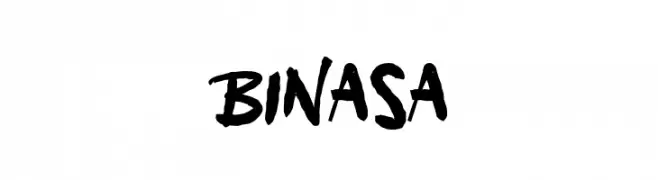
A playful, hand-drawn font with a spooky, rustic style.
A playful, hand-drawn font with a spooky, whimsical style.
A decorative font with whimsical swirls and intricate inline details.
A dynamic and elegant script font with fluid strokes and a graceful slant.
Expressive, bold script with a handwritten brush style.
A lively and elegant script font with smooth, interconnected curves.
A bold, playful font with rounded, cartoonish characters.
A playful, dotted font with bold, rounded characters and whimsical decorative elements.
A bold, three-dimensional font with a dynamic and decorative style.
A playful, hand-drawn font with a whimsical and artistic style.
A bold, graffiti-style font with dynamic, hand-drawn strokes.
A playful, handwritten font with a casual and friendly style.
A bold, decorative font with a filled, striped pattern and three-dimensional effect.
A bold, hollow, and condensed font with a modern, decorative style.
A bold, hollow, 3D decorative font with strong outlines and a modern, dynamic style.
A bold, decorative font with a 3D effect and industrial texture.
A bold, hand-drawn font with a textured, sketch-like appearance.
A lively handwritten font with fluid, slightly slanted characters.
A bold, hand-drawn font with a rugged, organic texture.
A modern, interconnected font with continuous lines and geometric shapes.
A futuristic and geometric font with continuous line designs and a modern aesthetic.
A bold, hand-drawn font with an expressive and artistic style.
A spooky, dripping font perfect for Halloween themes.
A bold, handwritten font with a brush-like texture and dynamic style.
An elegant and flowing script font with graceful, cursive letterforms.
A bold, distressed font with a hand-drawn, grunge style.
A bold, decorative font with a dotted pattern and rounded edges.
A bold, playful font with rounded, chunky characters ideal for eye-catching designs.
A bold, hand-drawn font with a textured brushstroke effect.
A bold, expressive script font with a hand-painted, artistic style.